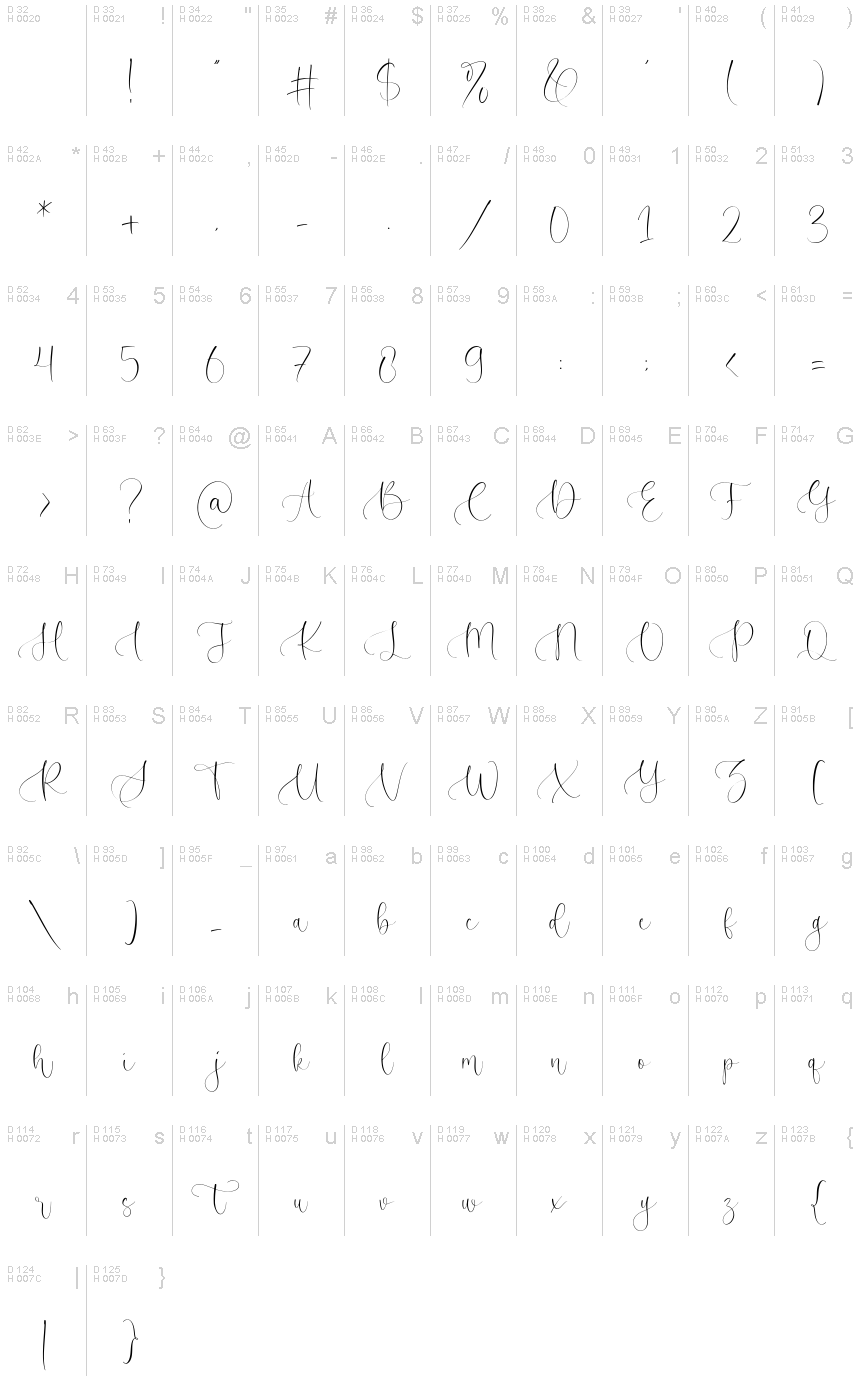
Blueberry Winter
Blueberry Winter font by Letterative Studio is a light handwritten font with elegant flourishes and ornamental details. It suggests a signature style that is flowy, charming, and unique for personal projects. Many cursive connections allow for high-contrast creations whose characters will captivate you.
This free handwritten font was designed for branding designs, labels, apparel items, quotes, posters and flyers, logotypes that need simplicity yet character validity.